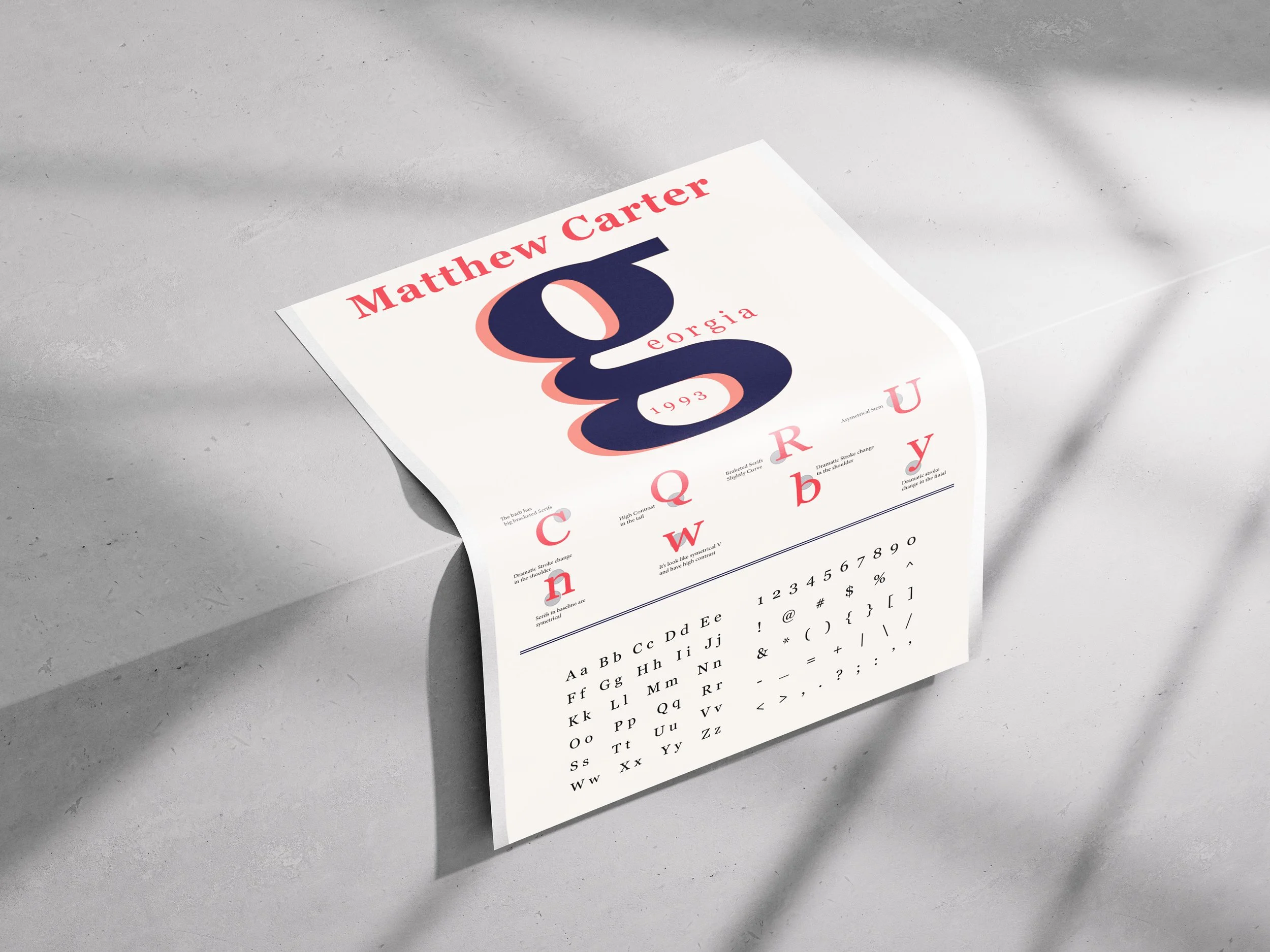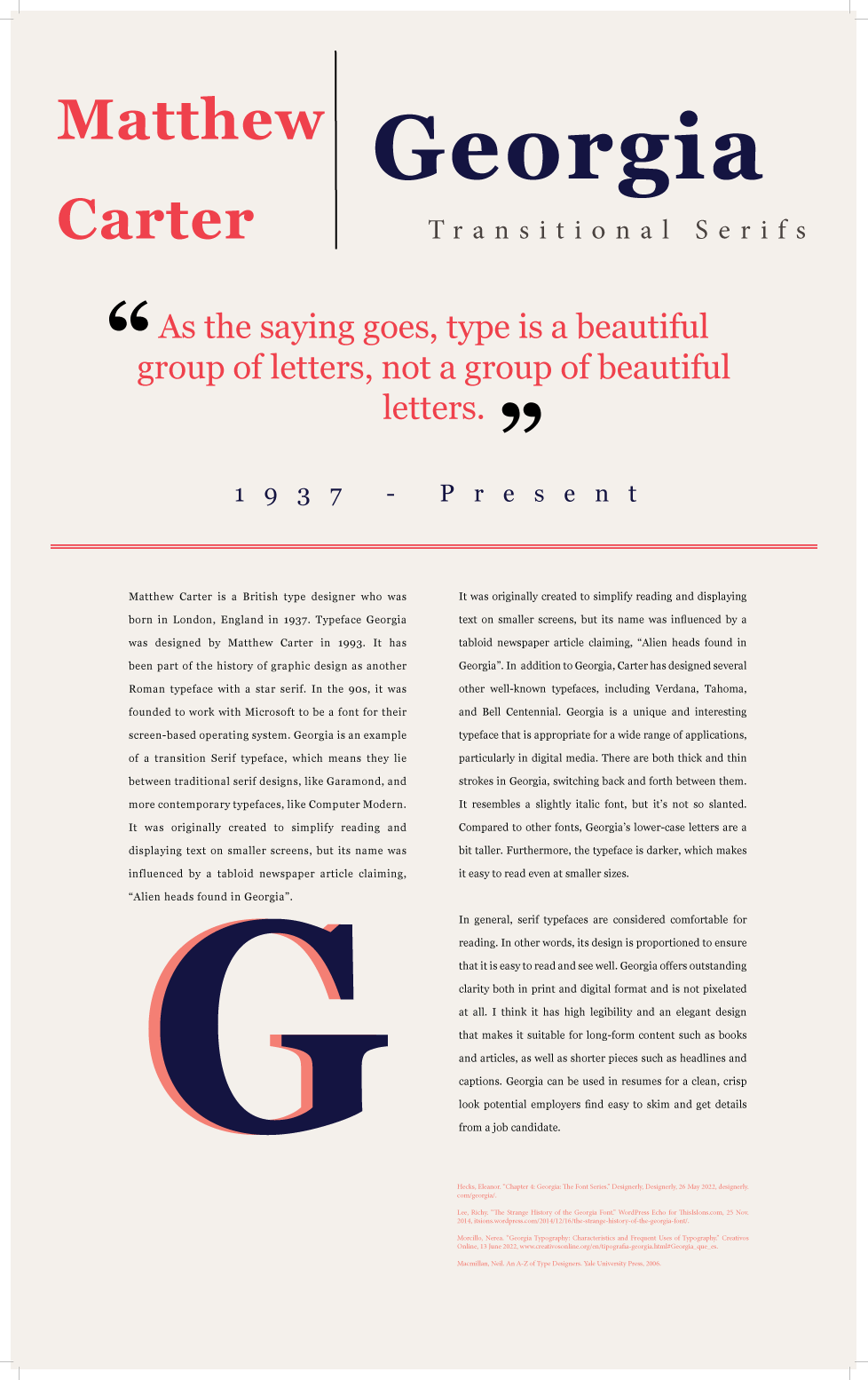
Georgia Typeface - M.Carter
I made two posters about the history of the Georgia typeface because I like how its timeless design bridges classic serif elegance with modern readability, making it versatile for both digital and print media. Georgia was designed by Matthew Carter, a British type designer, in 1993 for Microsoft to make text easier to read on screens. It's a typeface that combines old and new styles, with thick and thin strokes, slightly taller lowercase letters, and a darker look, which helps it stay clear even at small sizes. Its name comes from a tabloid headline, "Alien heads found in Georgia." I think Georgia is a versatile font that works well for both digital and print, making it great for things like books and resumes.